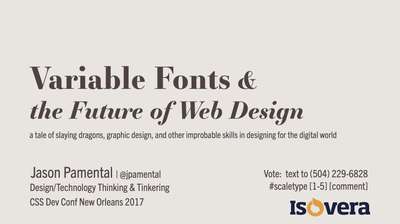
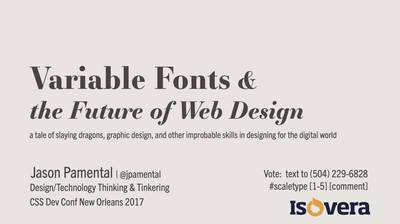
The web is about words—ok, and cat videos—but otherwise lots and lots of words. We’re well past the tipping point of ‘more mobile than desktop’, and the use of content management systems has skyrocketed—so the way we set those words has a bigger impact than ever on design, usability, and brand differentiation. There’s no doubt that typography is our most important tool in great design and UX, but that can’t come at the expense of performance. Otherwise we risk our great designs never being seen. Enter the latest development in type technology: Variable Fonts, coming to web browsers near you.
Envision a single font file that can scale in size, width, weight and even x-height—exactly as the type designer envisioned. All controllable with CSS. Everything from super-fine-line delicacy to the chunkiest slab headlines; wide widths in banners and slightly narrower body copy for better line lengths on mobile devices. If type is the voice of your words, that voice just became a chorus. We’ll look at the technology, how to use it, timeline for release, and most importantly: their impact on the dynamic range of our design capabilities. Make no mistake: variable fonts will have a more significant impact on web design than anything since responsive design itself. Learn how you can use them today and be ahead of the web tomorrow.